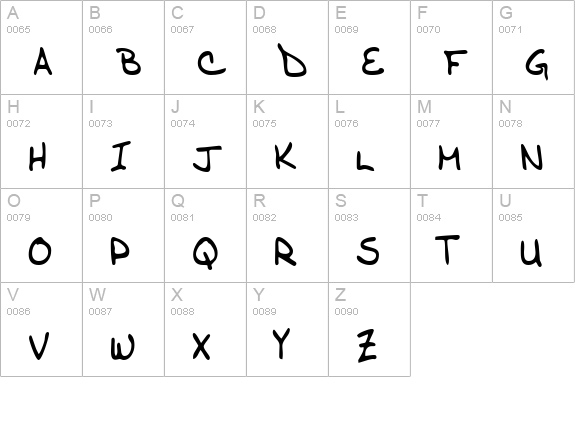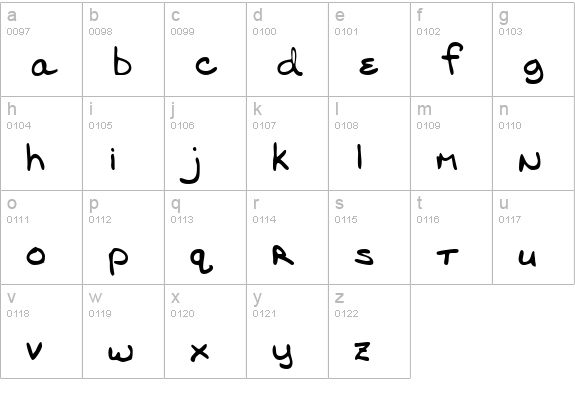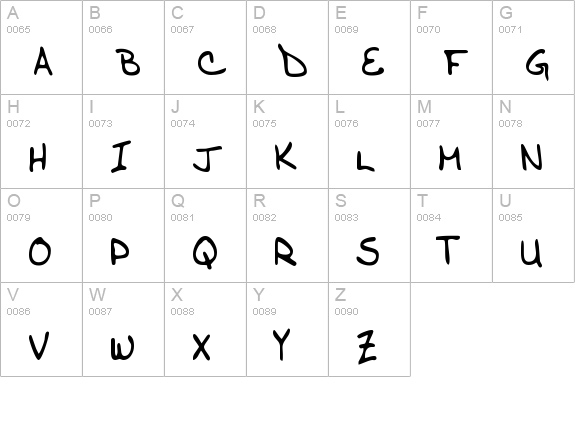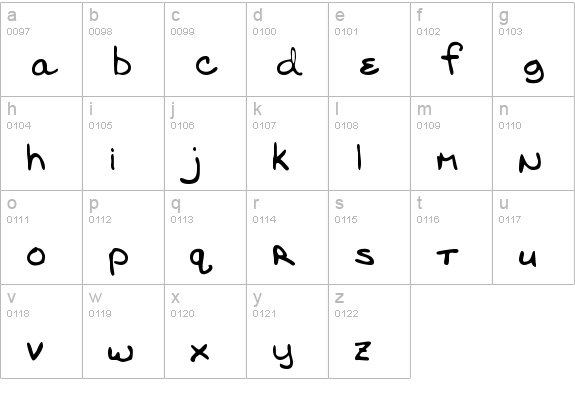
RonniesHand Regular Font Details
RonniesHand Regular is the standard, neutral variant in the RonniesHand typeface family \xE2\x80\x94 well suited to general body text, paragraphs, and standard typographic work.
RonniesHand Regular font is a charming and whimsical typeface that exudes a sense of playfulness and creativity. With its hand-drawn look and unique character shapes, this font is perfect for adding a personal touch to your designs. Whether you're working on greeting cards, invitations, posters, or branding projects, RonniesHand Regular will bring a touch of warmth and personality to your work. The best part? RonniesHand Regular font is completely free to download at FontsMarket.com. You can easily access this delightful font and start using it in your projects right away. Don't miss out on the opportunity to add a touch of handmade charm to your designs with RonniesHand Regular font – download it for free today!